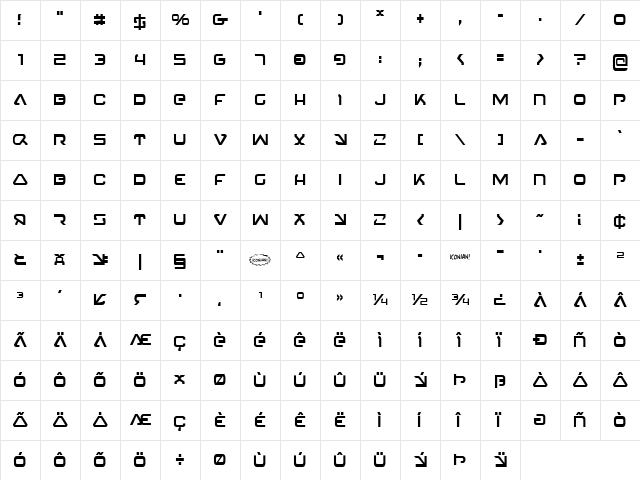
4114 Blaster Condensed Condensed
Design Context for 4114 Blaster Condensed Typeface
4114 Blaster Condensed takes a measured approach to typography — its balanced proportions and neutral character make it a reliable workhorse for both digital and print work. Its narrow stance lets it pack a punch even in space-constrained designs.